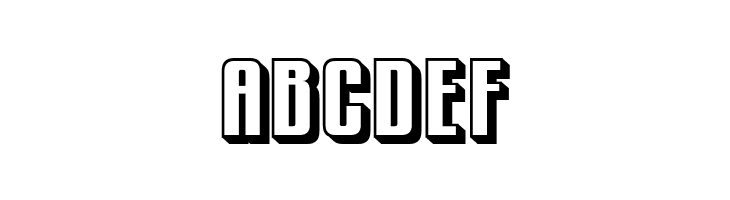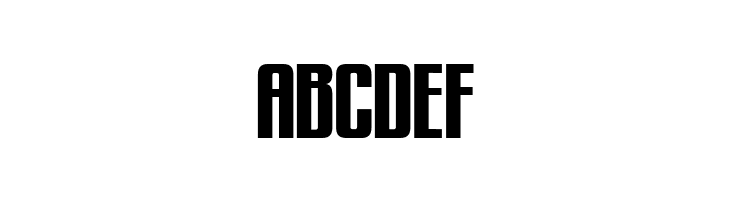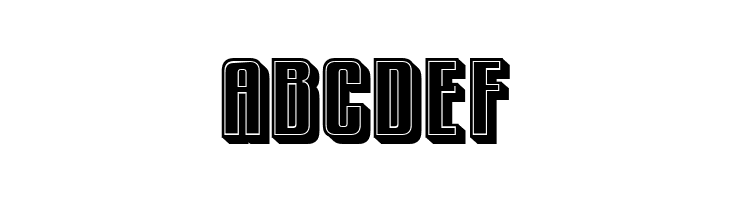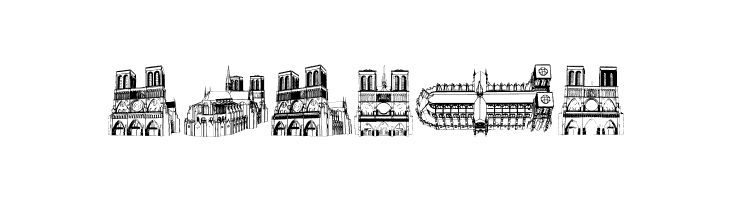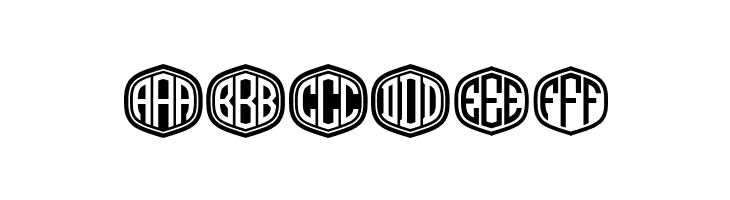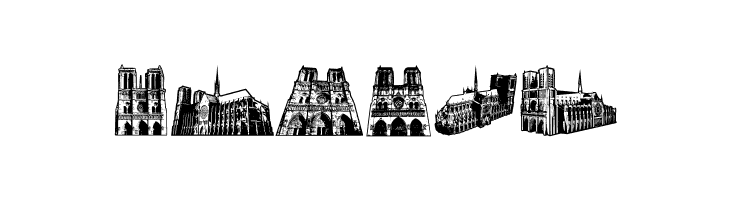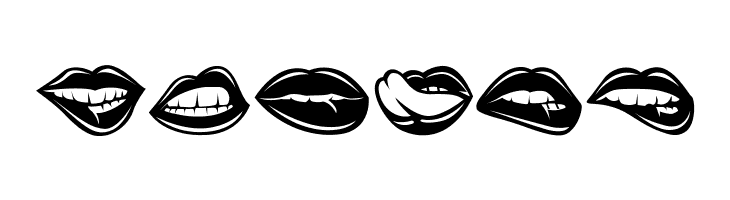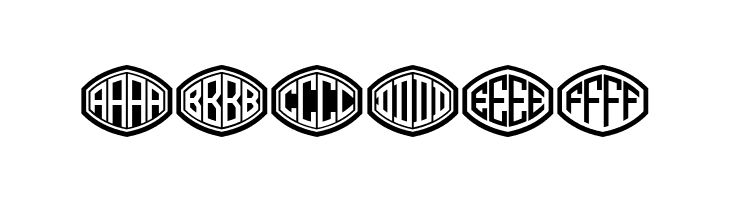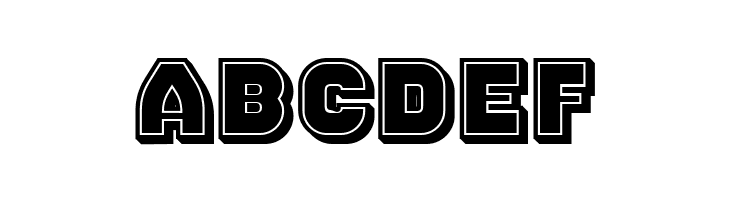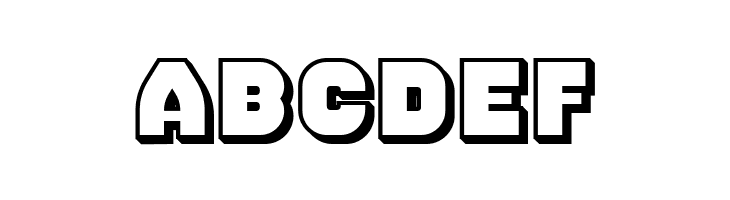
A bold, geometric font with a three-dimensional outline, ideal for display use.
A bold, geometric font with hollow interiors and thick outlines.
A bold, decorative font with a grid pattern and thick outlines, offering a modern and playful style.
A bold, geometric monogram font with characters enclosed in hexagons.
A decorative monogram font with bold, uppercase letters enclosed in ovals.
A stylish and artistic font with modern and vintage elements, featuring unique decorative flourishes.
A bold, monospaced font with uniform character width and strong readability.
A dynamic monospace font with an oblique slant, offering uniformity and elegance.
A clean and organized monospaced font ideal for coding and data presentation.
Decorative pictogram font with stylized female icons.
Decorative font featuring illustrated lips for each character.
A bold, geometric font with a modern and industrial aesthetic.
A bold, geometric font with thick outlines and strong contrast.
A bold, geometric font with a three-dimensional effect, ideal for vintage or industrial designs.
A distressed, scratch-like font with an edgy, chaotic style.
A tall, narrow, hand-drawn font with a unique and artistic style.
A jagged, gothic-style font with thorn-like accents, ideal for dramatic themes.
A bold, 3D wireframe font with a decorative and futuristic style.
A bold, playful font with rounded characters and circular cutouts, perfect for decorative use.
A bold, brush-style font with a dynamic, hand-drawn appearance.
A bold, geometric font with a three-dimensional, outlined style.
A bold, three-dimensional font with a strong, impactful presence.
A decorative font featuring detailed illustrations of Notre Dame Cathedral for each character.
A decorative font inspired by Notre Dame's Gothic architecture.
A bold, geometric font with a modern, blocky style.
A bold, geometric font with a filled interior and outlined style.
A bold, geometric font with a three-dimensional outline and modern aesthetic.
A bold, dynamic font with brush-like strokes and a slightly slanted style.
A modern, italic font with clean lines and excellent readability.
A modern, geometric sans-serif font with a clean and balanced design.
A bold, hollow font with a 3D shadow effect, perfect for modern and creative displays.